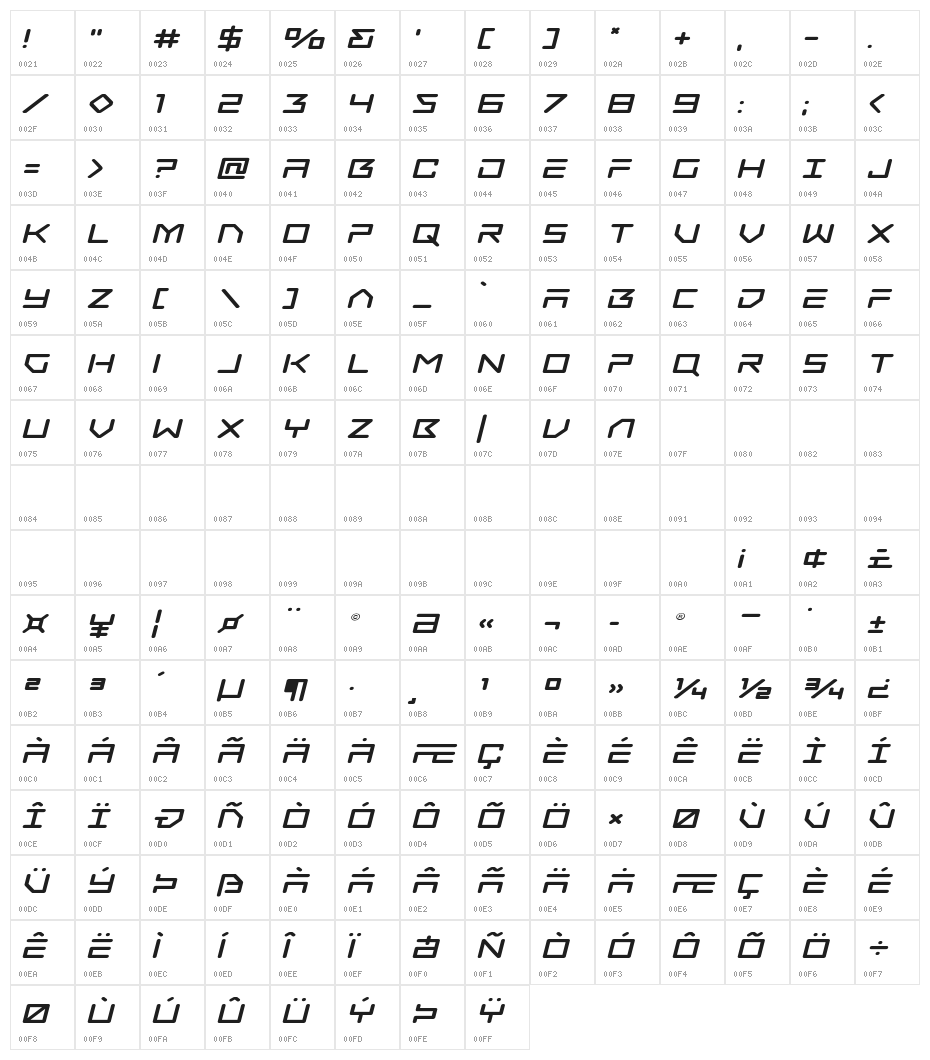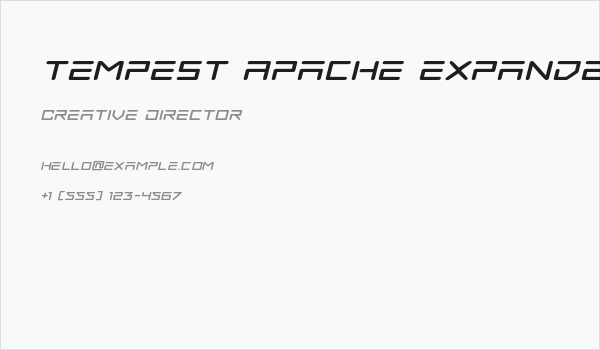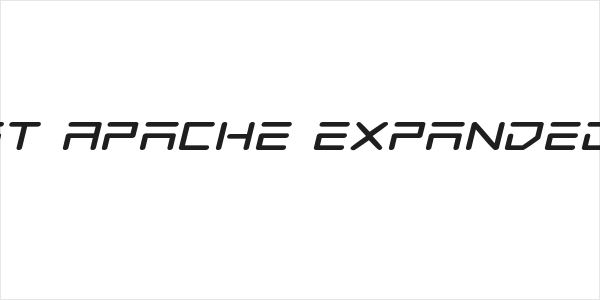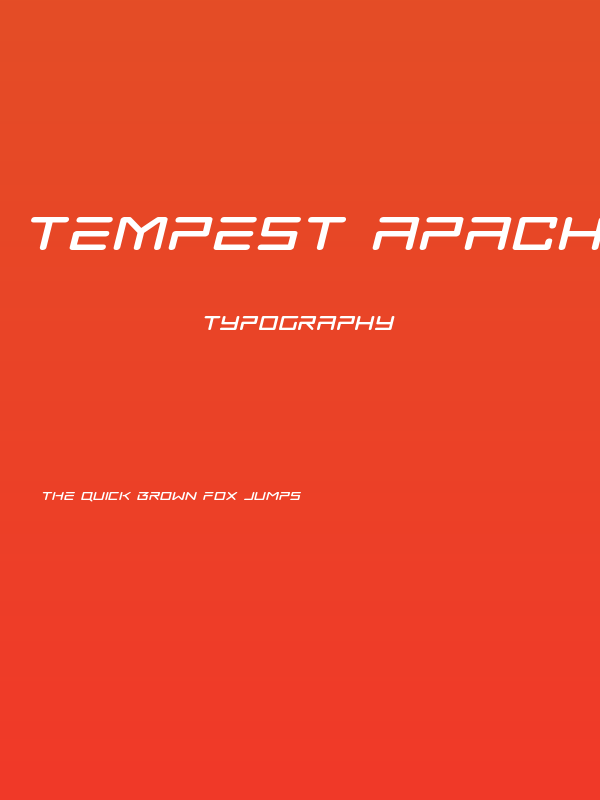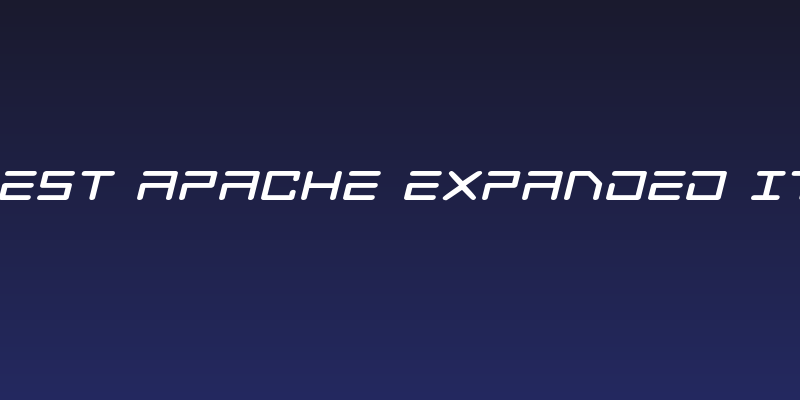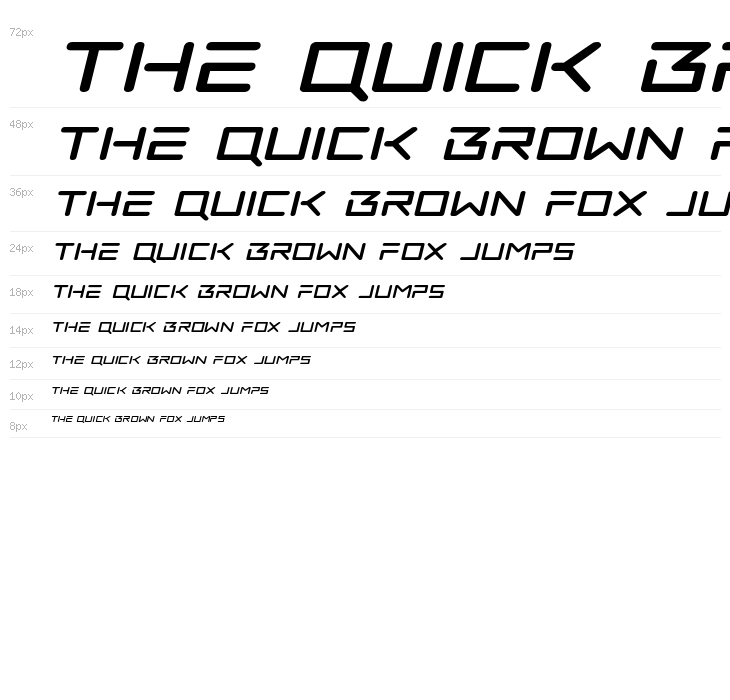
Tempest Apache Expanded Italic Font
Tempest Apache Expanded Italic Description
This font features a futuristic and dynamic design with an italicized slant, giving it a sense of motion and speed. The characters are expanded, providing a wide and open appearance. The geometric shapes and sharp angles contribute to a modern and tech-inspired aesthetic. The uppercase and lowercase letters maintain a consistent style, with a uniform stroke width that adds to its sleek and streamlined look. The numerals and special characters are designed to match the overall theme, making it suitable for projects that require a bold and contemporary feel.
| Proposed Projects | Ideal for technology branding, sci-fi movie posters, video game titles, and modern advertising campaigns. |